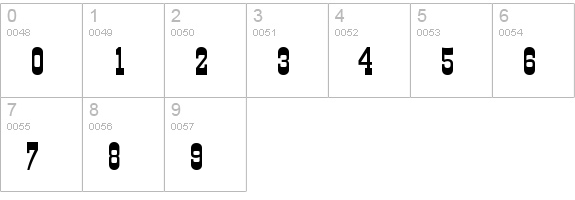
QTOKCorral-Ext Regular is the standard, neutral variant in the QTOKCorral typeface family \xE2\x80\x94 well suited to general body text, paragraphs, and standard typographic work.
QTOKCorral-Ext Regular font is a stunning typeface that is perfect for adding a touch of elegance and sophistication to any project. With its clean lines and graceful curves, this font is sure to make a lasting impression. What sets QTOKCorral-Ext Regular apart is that it is not only visually appealing, but it is also freely available to download at FontsMarket.com. This means that you can add this beautiful font to your collection without spending a dime. Whether you are designing a logo, creating a website, or working on a branding project, QTOKCorral-Ext Regular is a versatile font that will elevate your design to the next level. Its legibility and readability make it suitable for both large headlines and small body text. The attention to detail in QTOKCorral-Ext Regular is truly remarkable. Each letter is meticulously crafted to ensure a harmonious balance between elegance and functionality. The result is a font that is not only visually pleasing but also easy to read. With its wide range of glyphs and characters, QTOKCorral-Ext Regular offers endless possibilities for creative expression. Whether you want to convey a sense of modernity, sophistication, or playfulness, this font has got you covered. In addition to its aesthetic appeal, QTOKCorral-Ext Regular also boasts excellent performance across different platforms and devices. It is compatible with various design software and can be seamlessly integrated into your workflow. So why wait? Download QTOKCorral-Ext Regular for free at FontsMarket.com and start adding a touch of elegance to your designs today. Let this font be the secret weapon in your creative arsenal, and watch as it transforms your projects into true works of art.